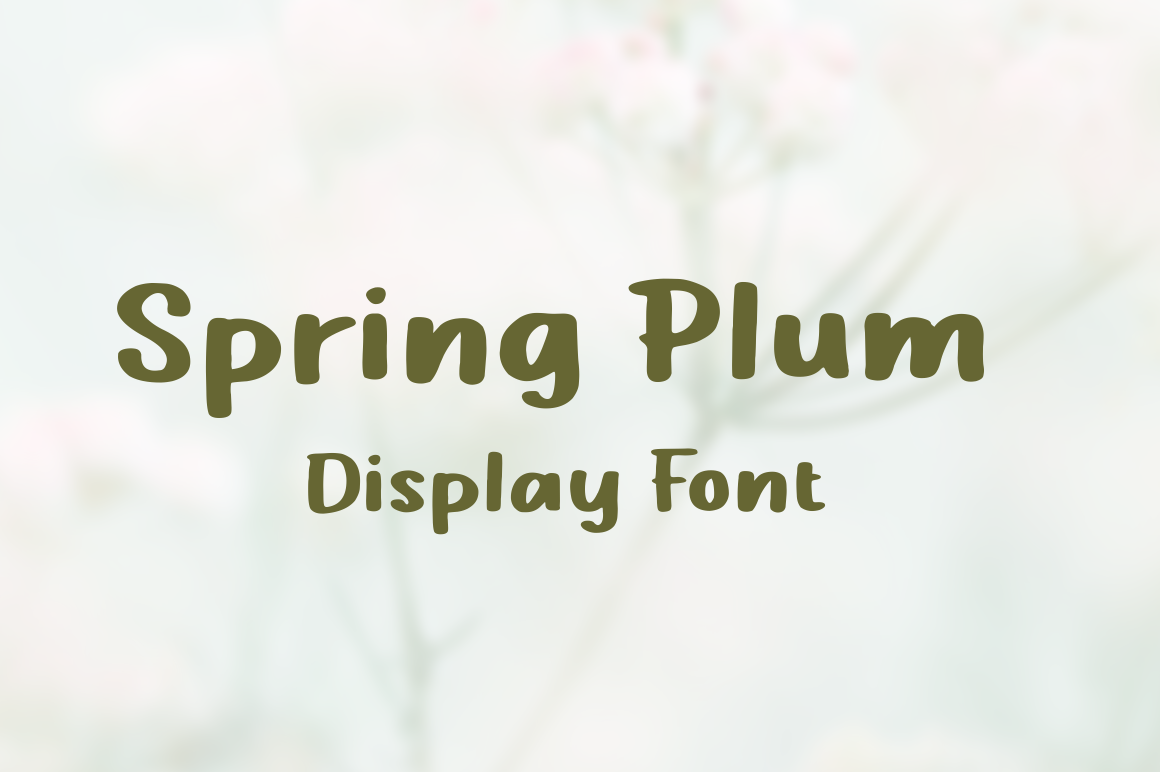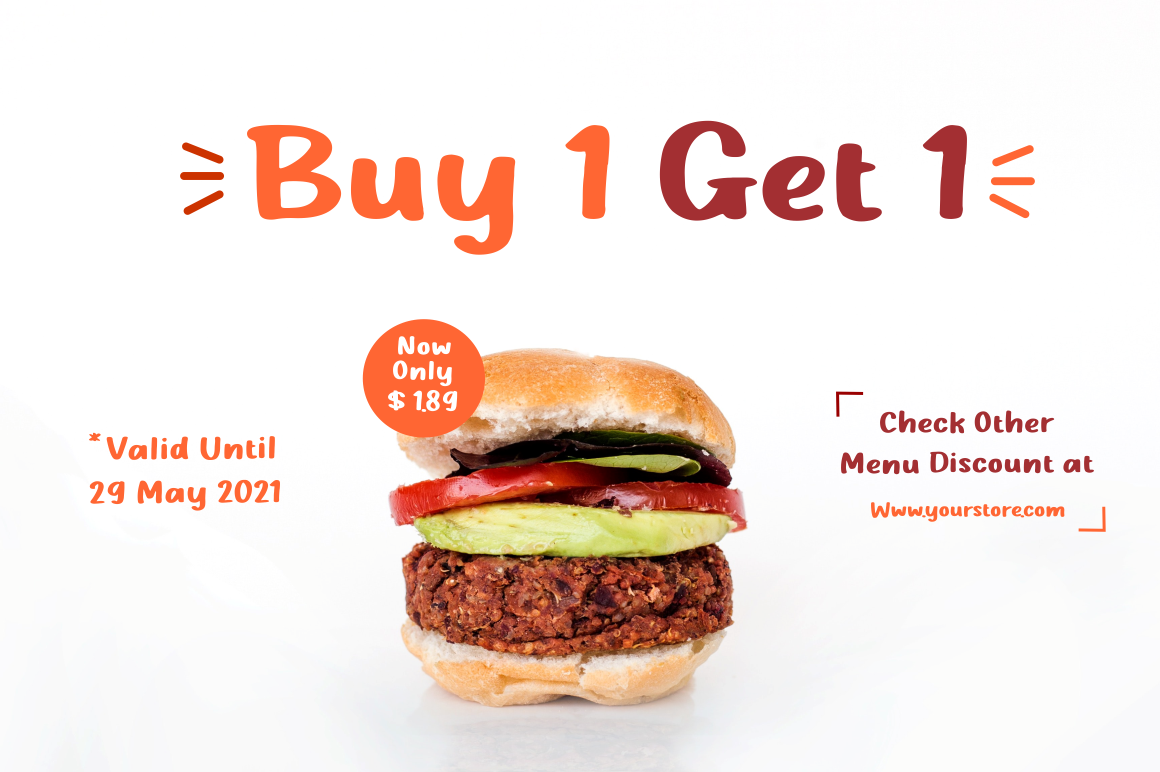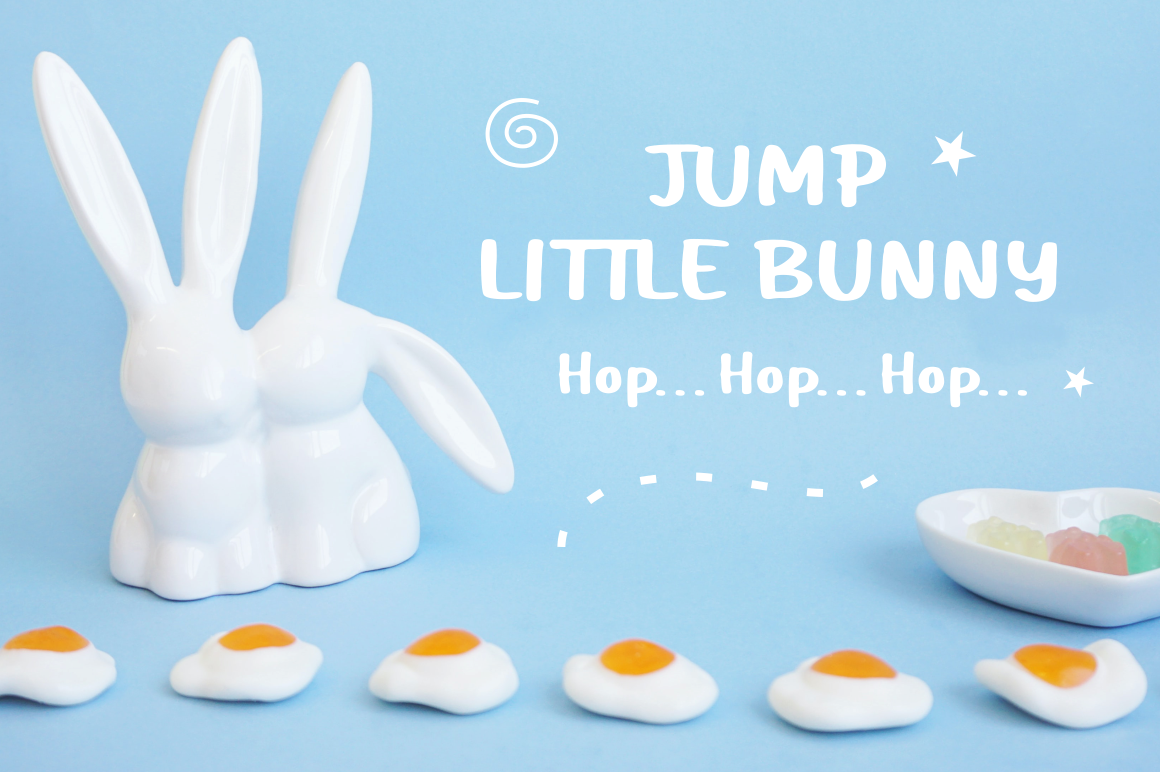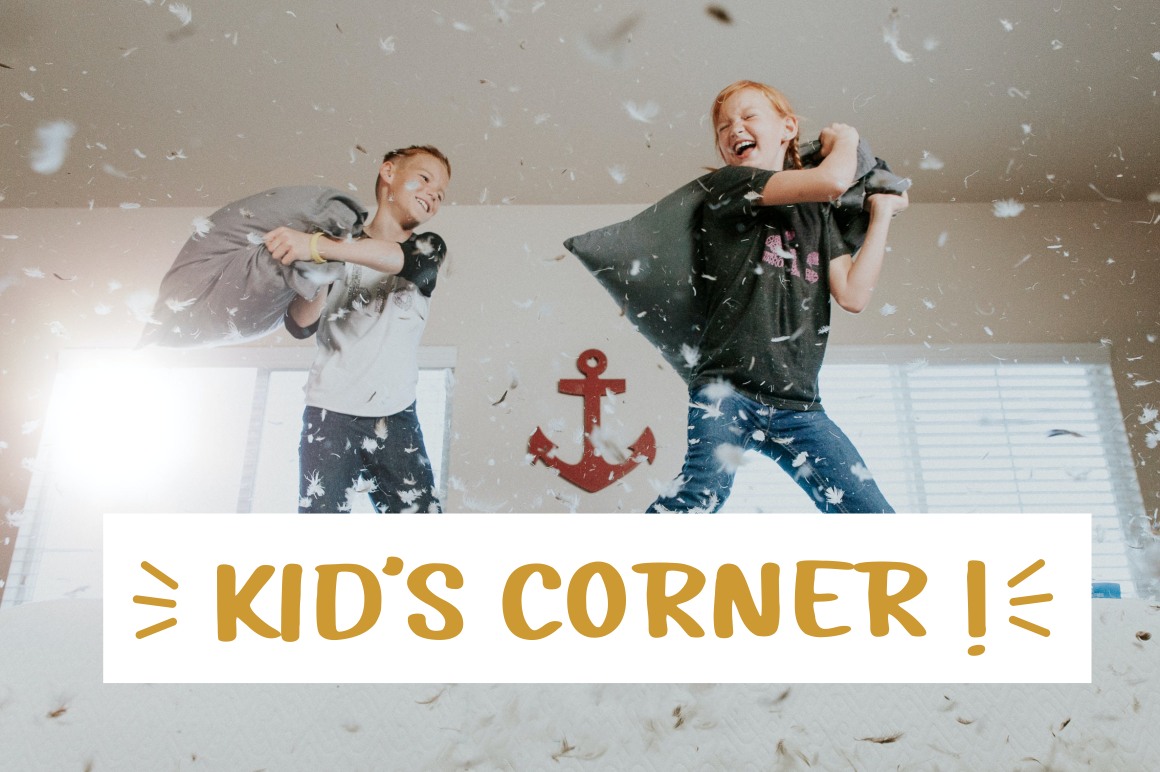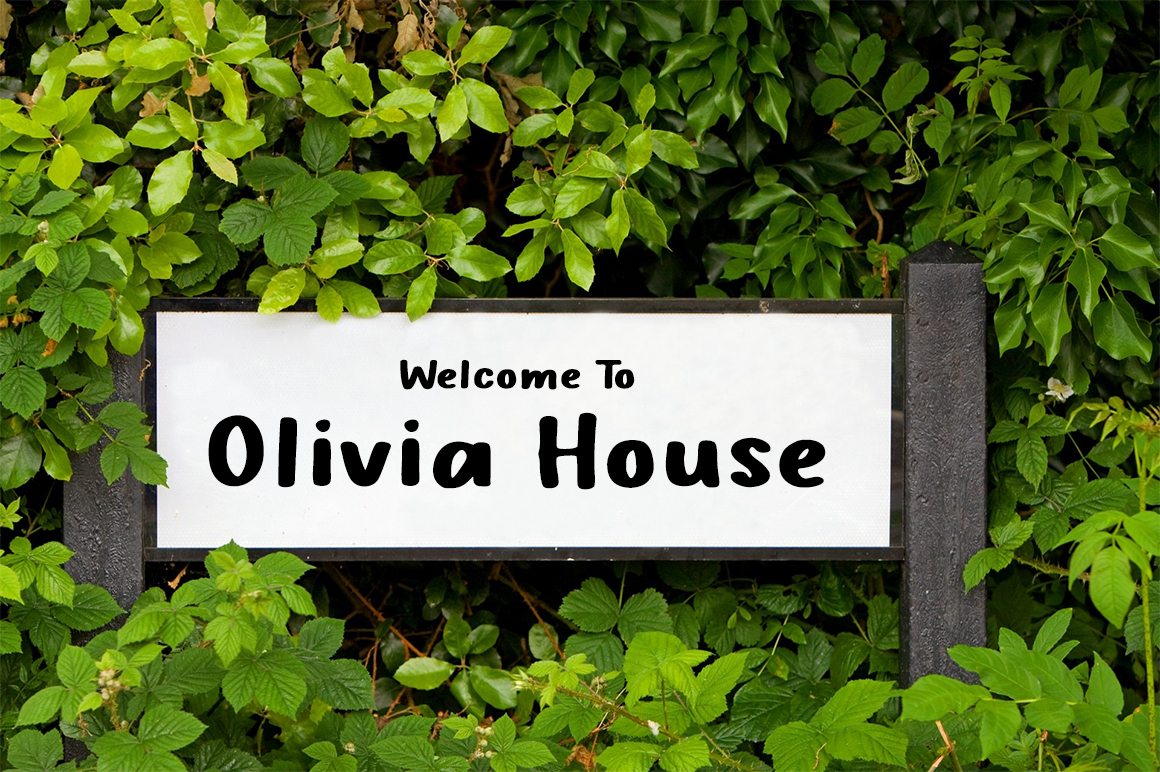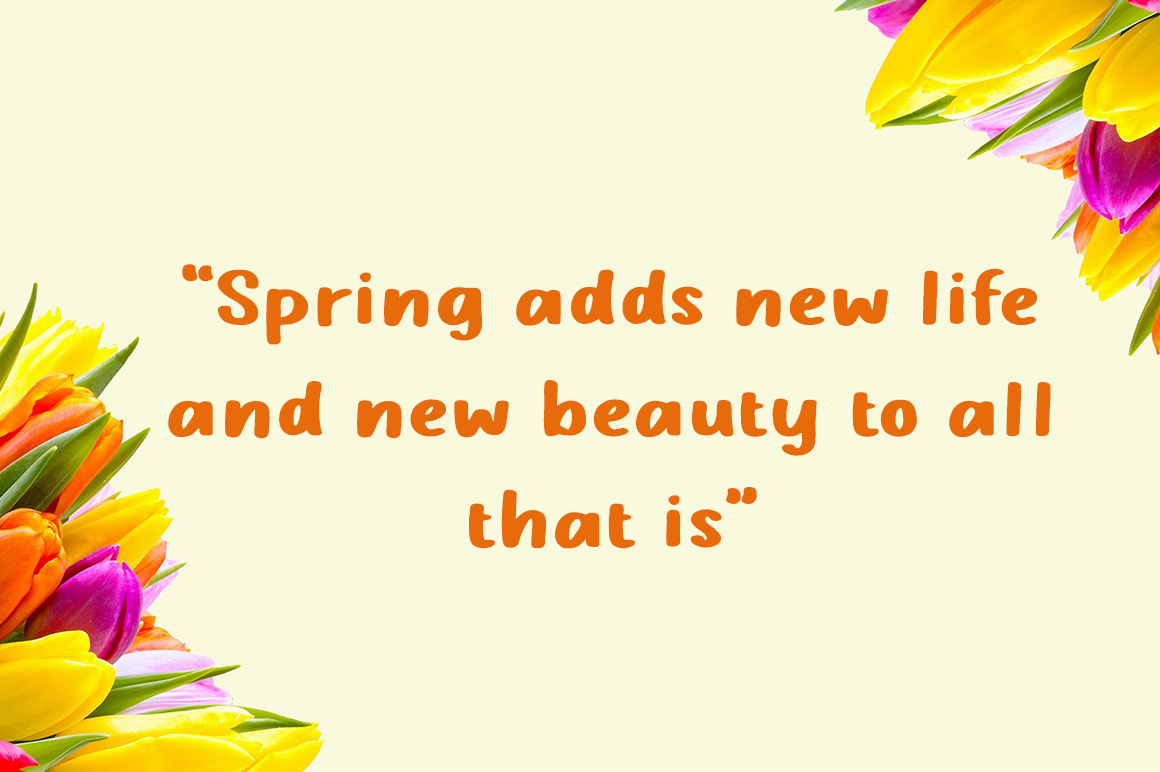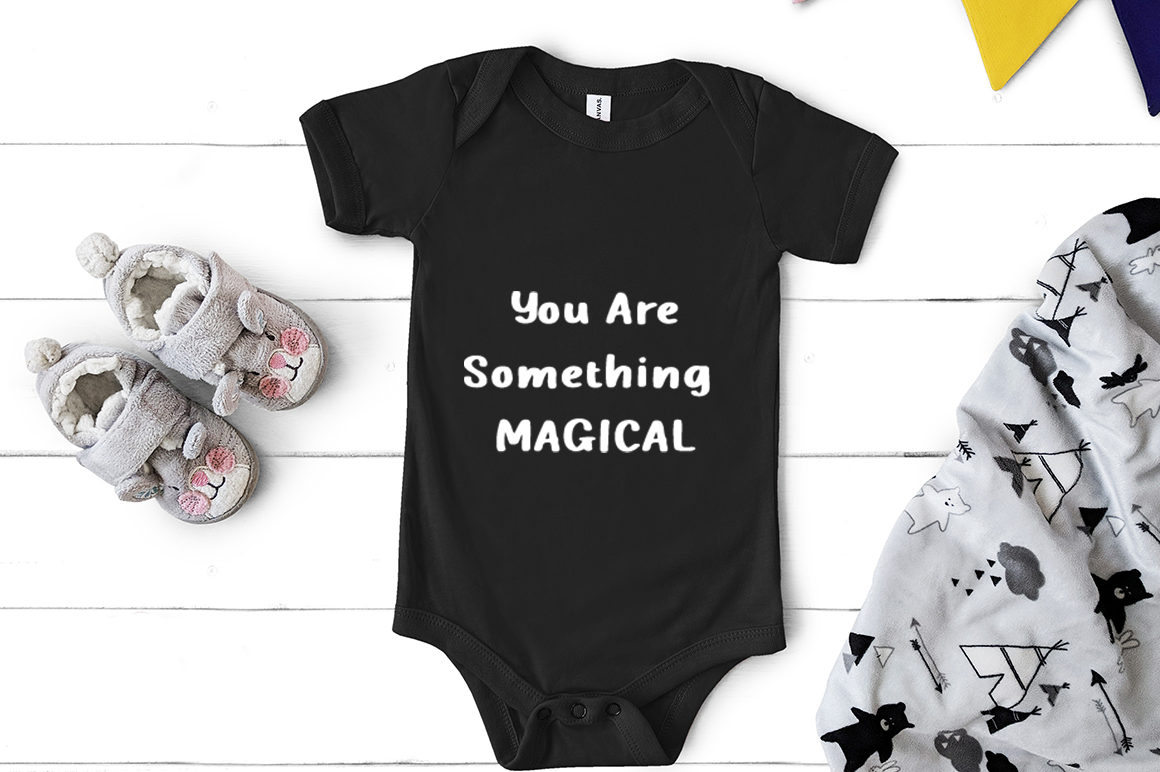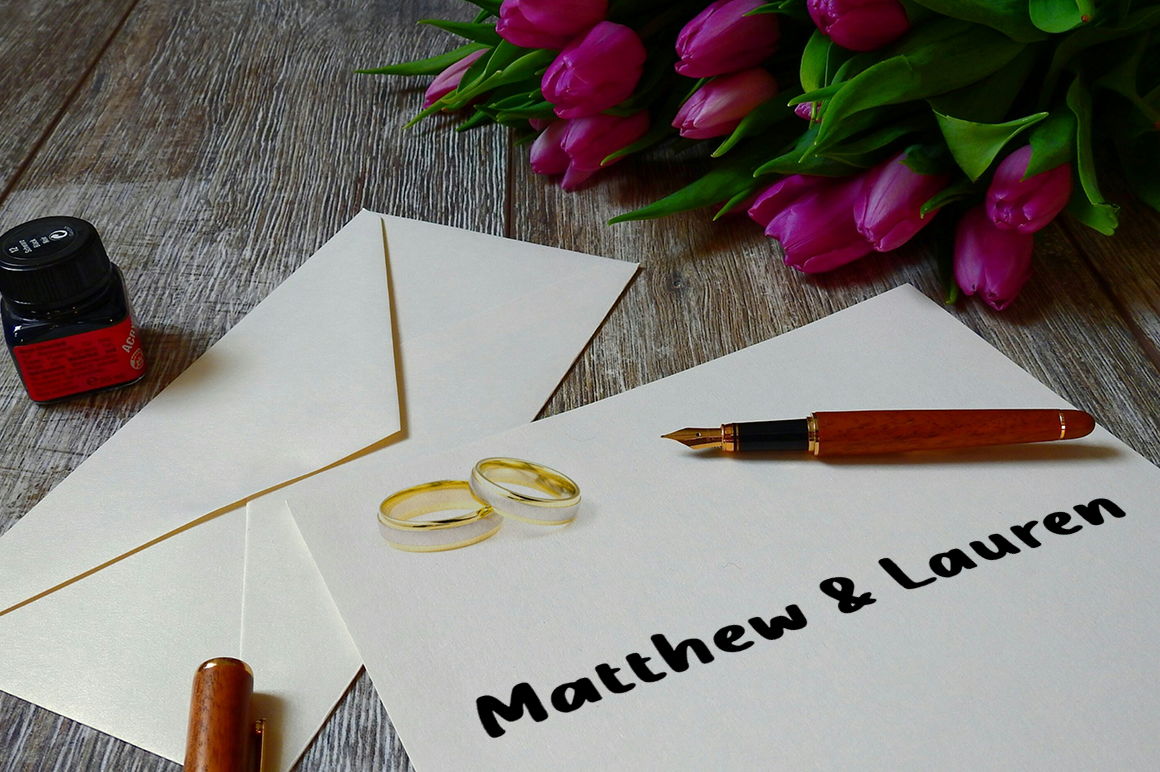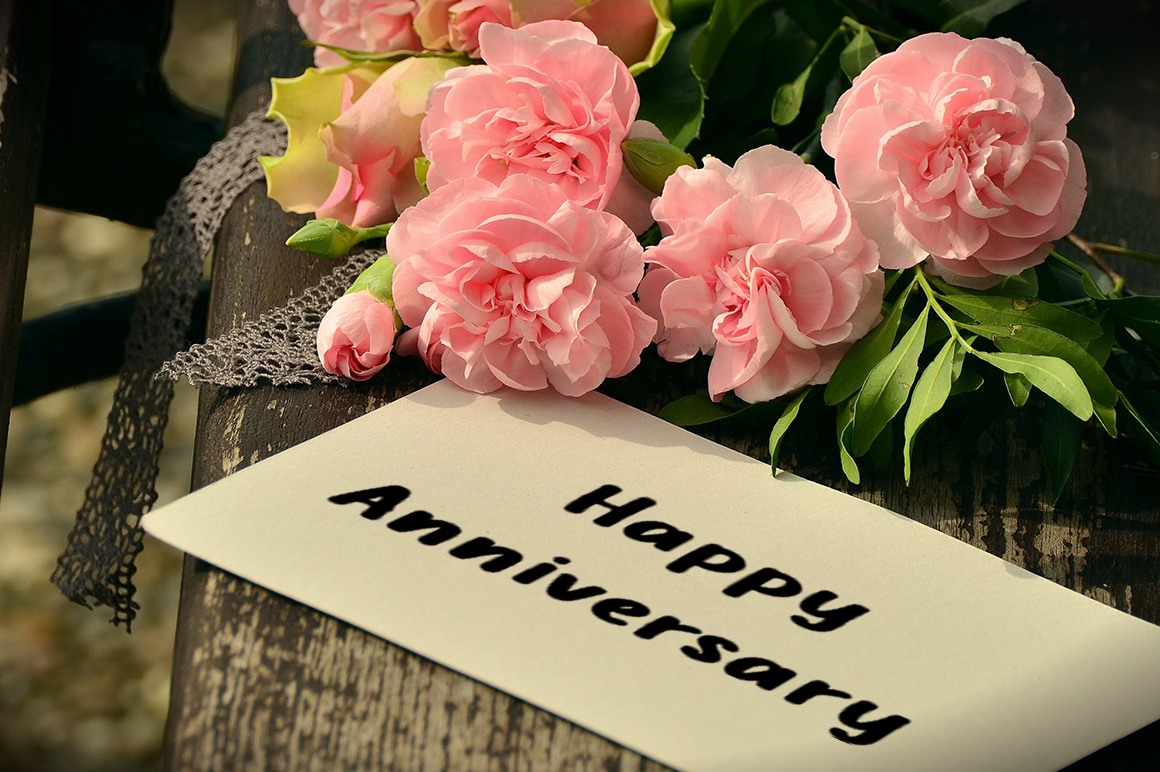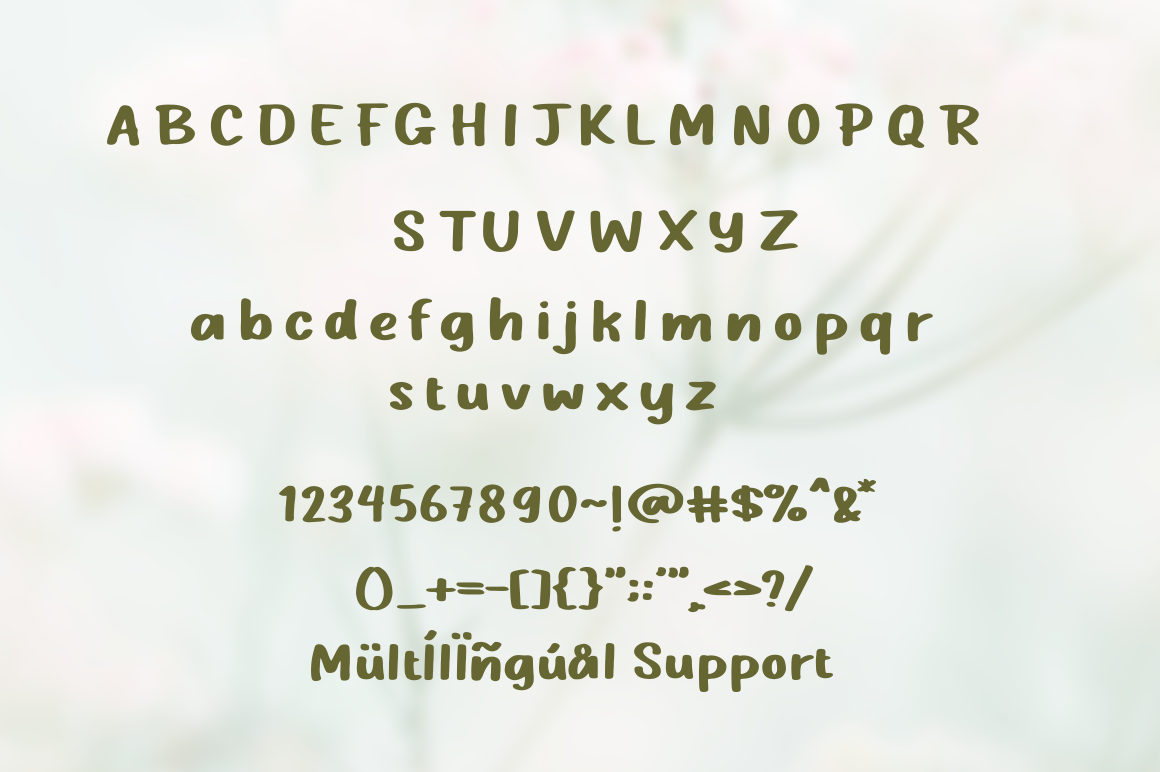
Spring Plum is a Handwritten Font, this font Is perfect for product packaging, product designs, label, photography, watermark, special events, or anything.
Spring Plum comes with uppercase and lowercase letters, multilingual symbols, numerals, punctuation.